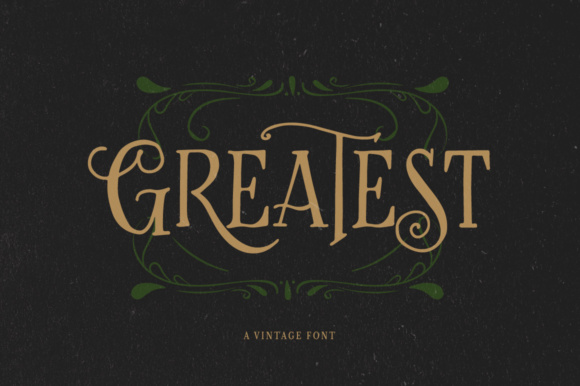
Introducing the Greatest Font: A Journey Through Time and Expression
Step into the world of vintage charm and artistic elegance with Greatest Font, a display typeface that captures the essence of timeless hand lettering. Created by the skilled hand of karendunn, Greatest Font is a nostalgic masterpiece that evokes the authenticity of the past, while simultaneously adding a touch of modernity to your digital creations.
With its delicate strokes and flowing curves, Greatest Font transports you to an era of classic beauty and handwritten notes. It's a font that speaks to the heart, inviting you to express yourself with a personal touch that resonates with your audience.
Whether you're designing logos, crafting invitations, creating social media graphics, or adding a touch of vintage charm to your website, Greatest Font is the perfect choice. Its versatility and timeless appeal make it a must-have for designers and creatives who appreciate the charm of the past and the possibilities of the present.
Embrace the allure of Greatest Font and let your designs stand out from the crowd. Its vintage hand-lettering style adds a touch of warmth and authenticity to your projects, creating a connection with your audience that goes beyond words.